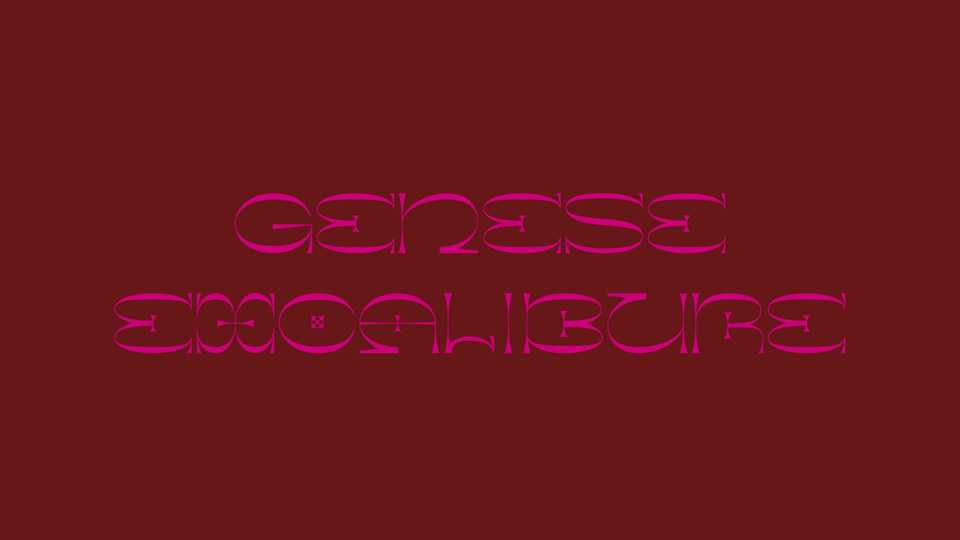
Download Genese Excalibure font, a decorative serif typeface with smoothly curved and reverse contrast letter shapes. Genese Excalibure is ideal for branding and editorial use.
Designer: Bastien Tessanne